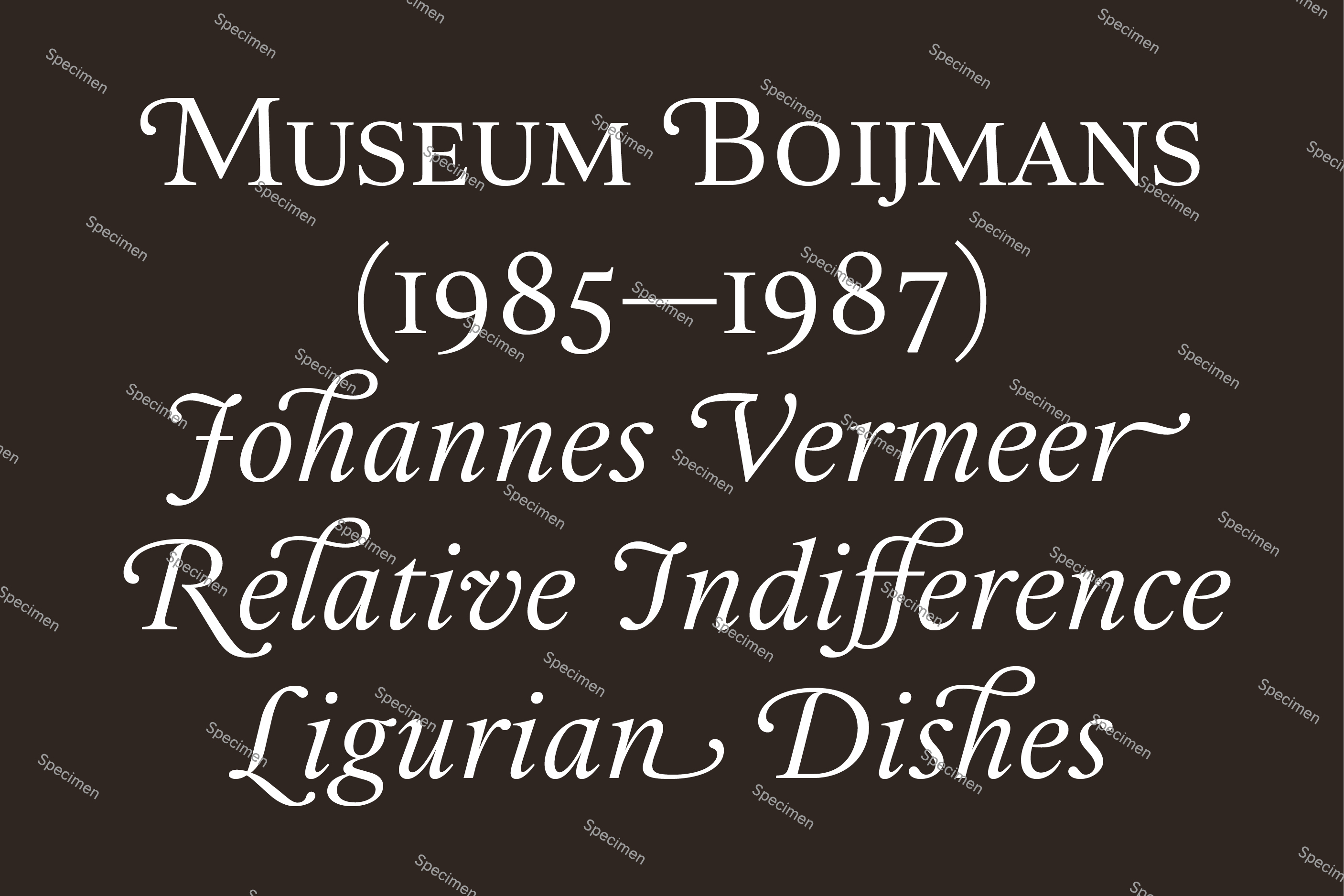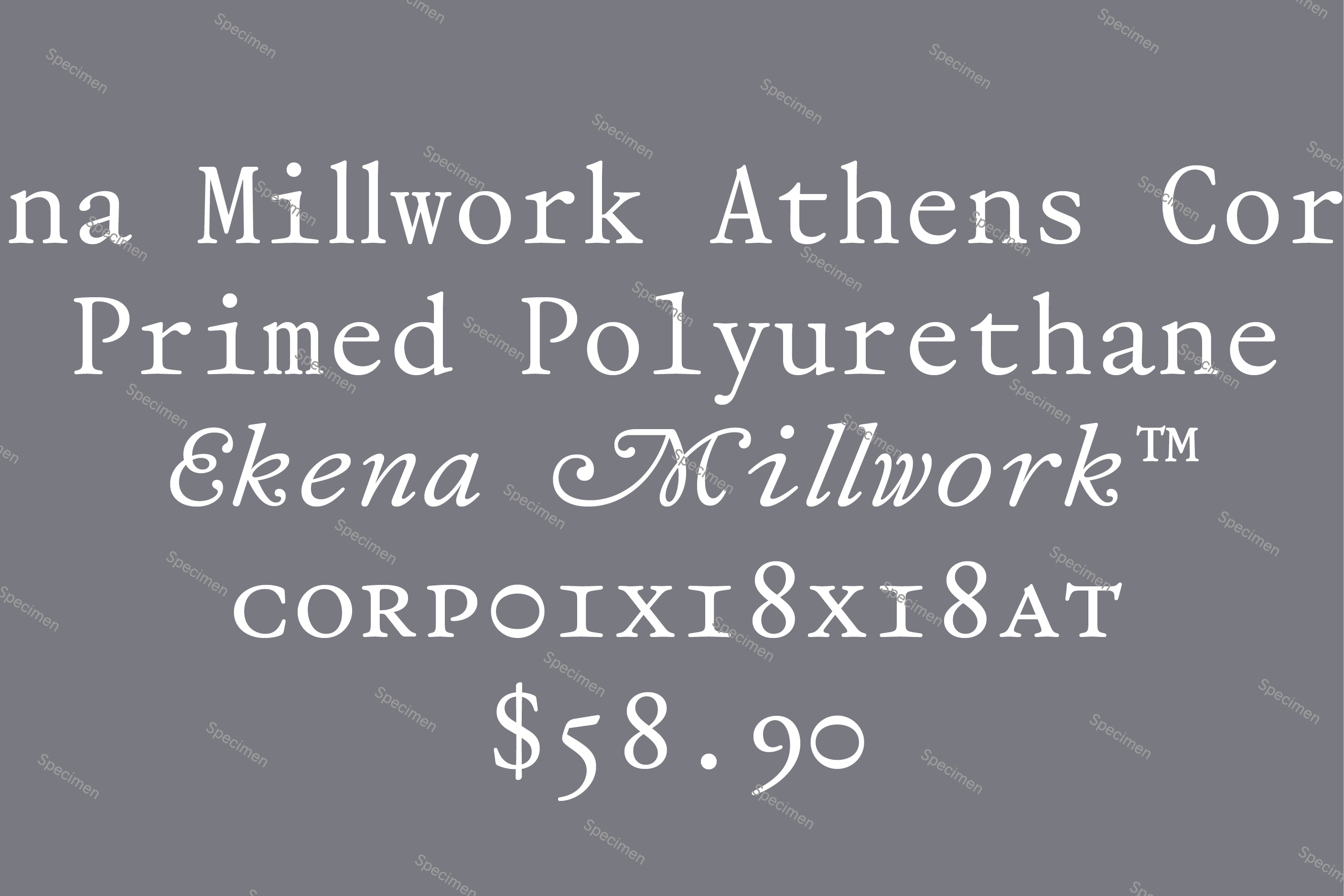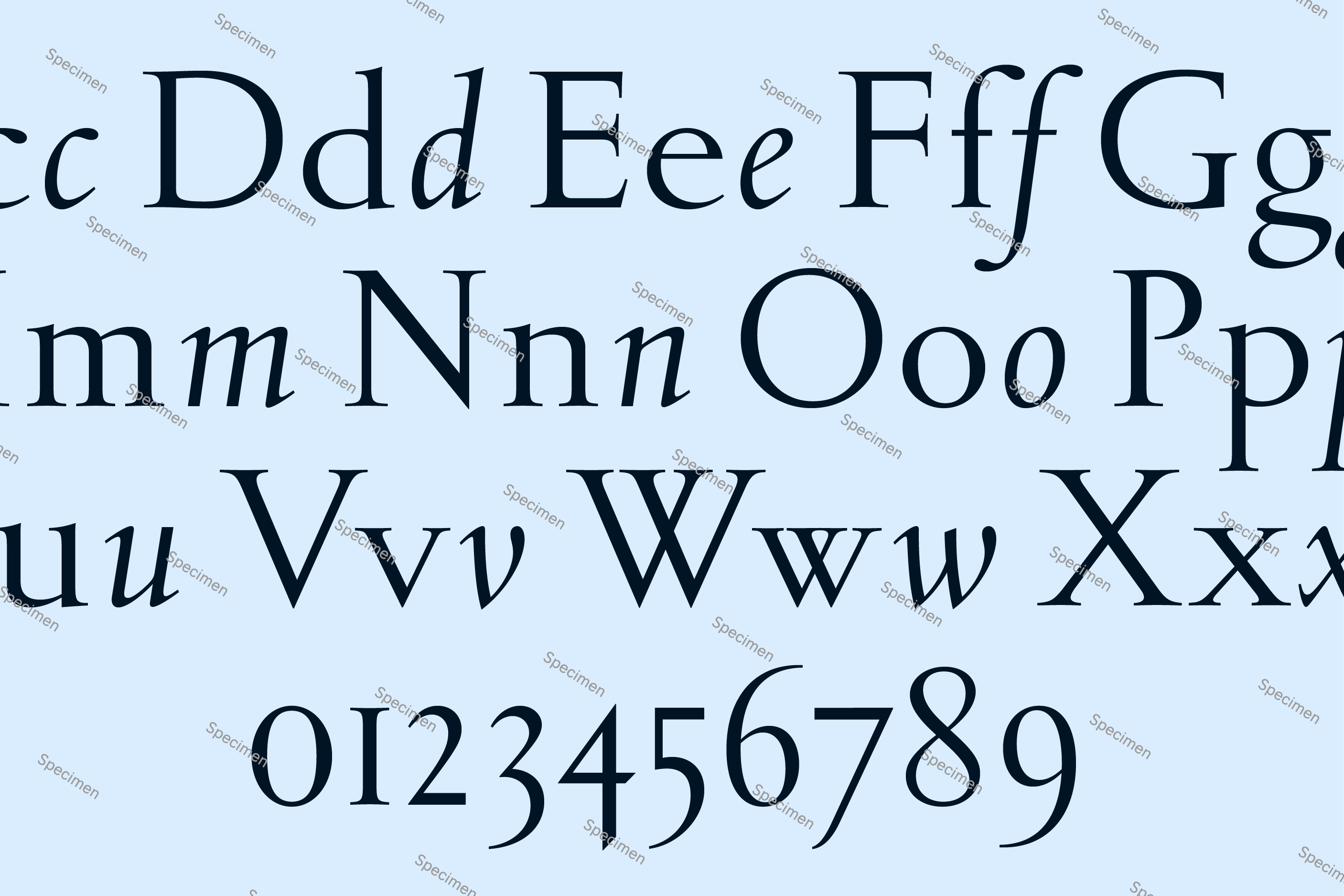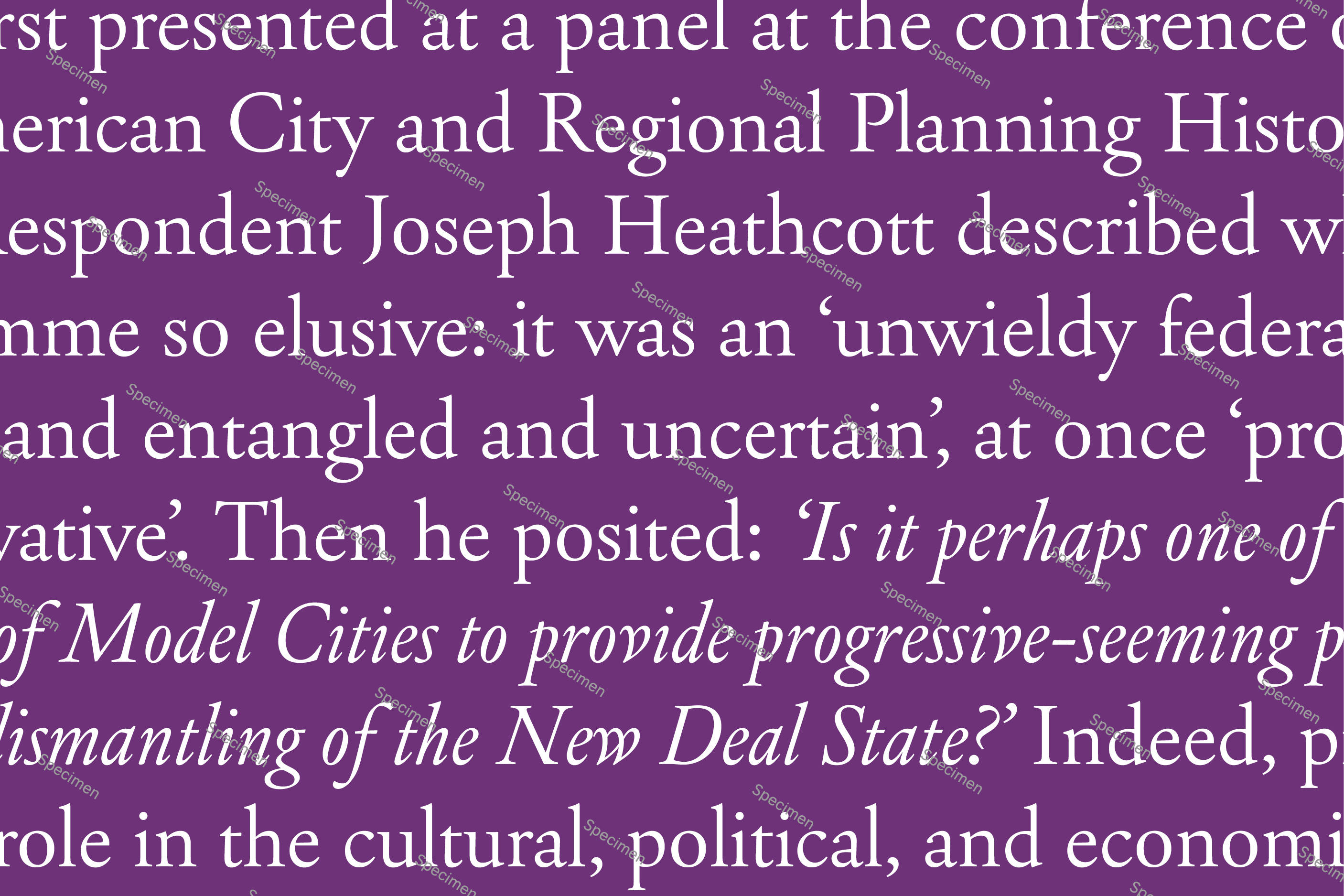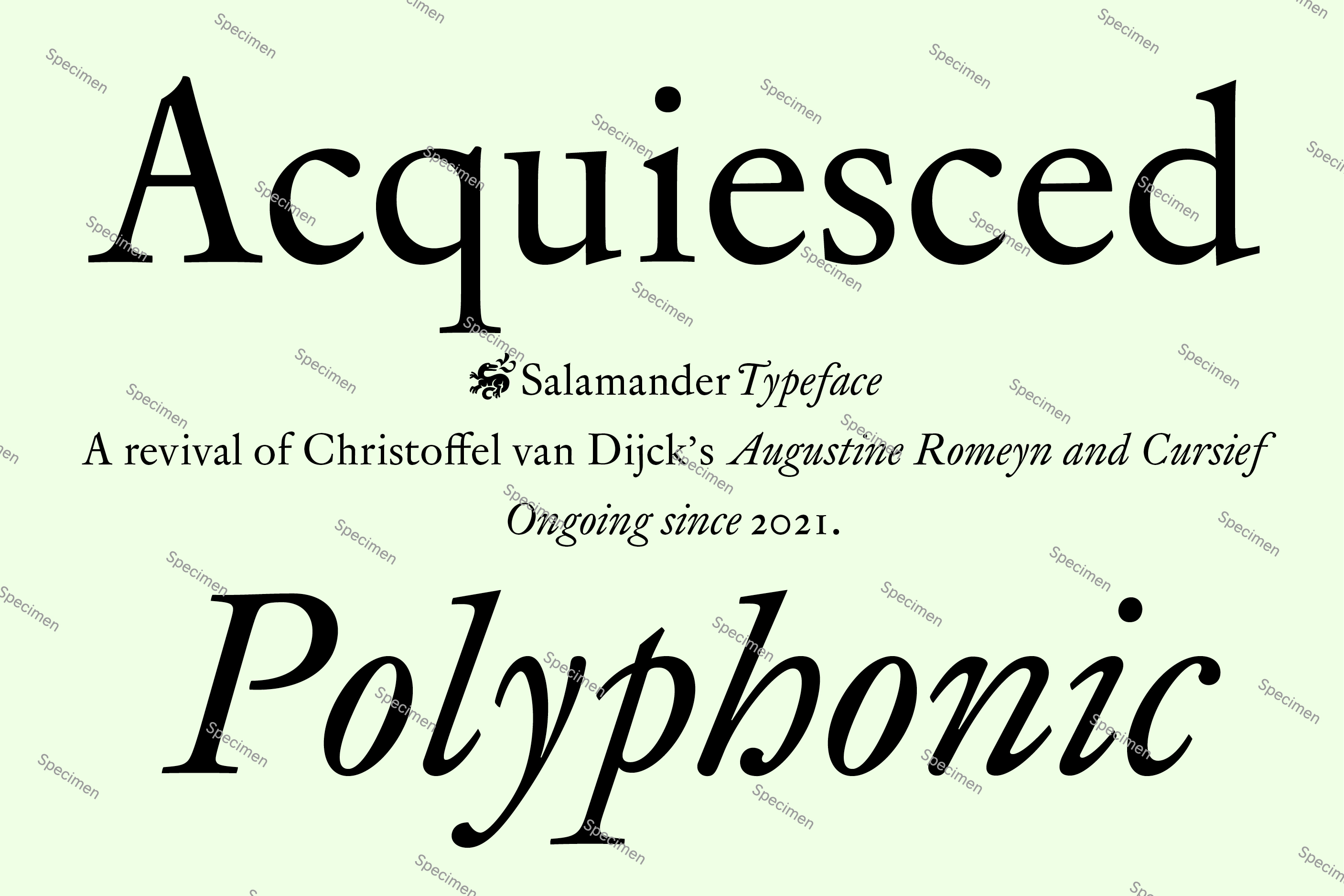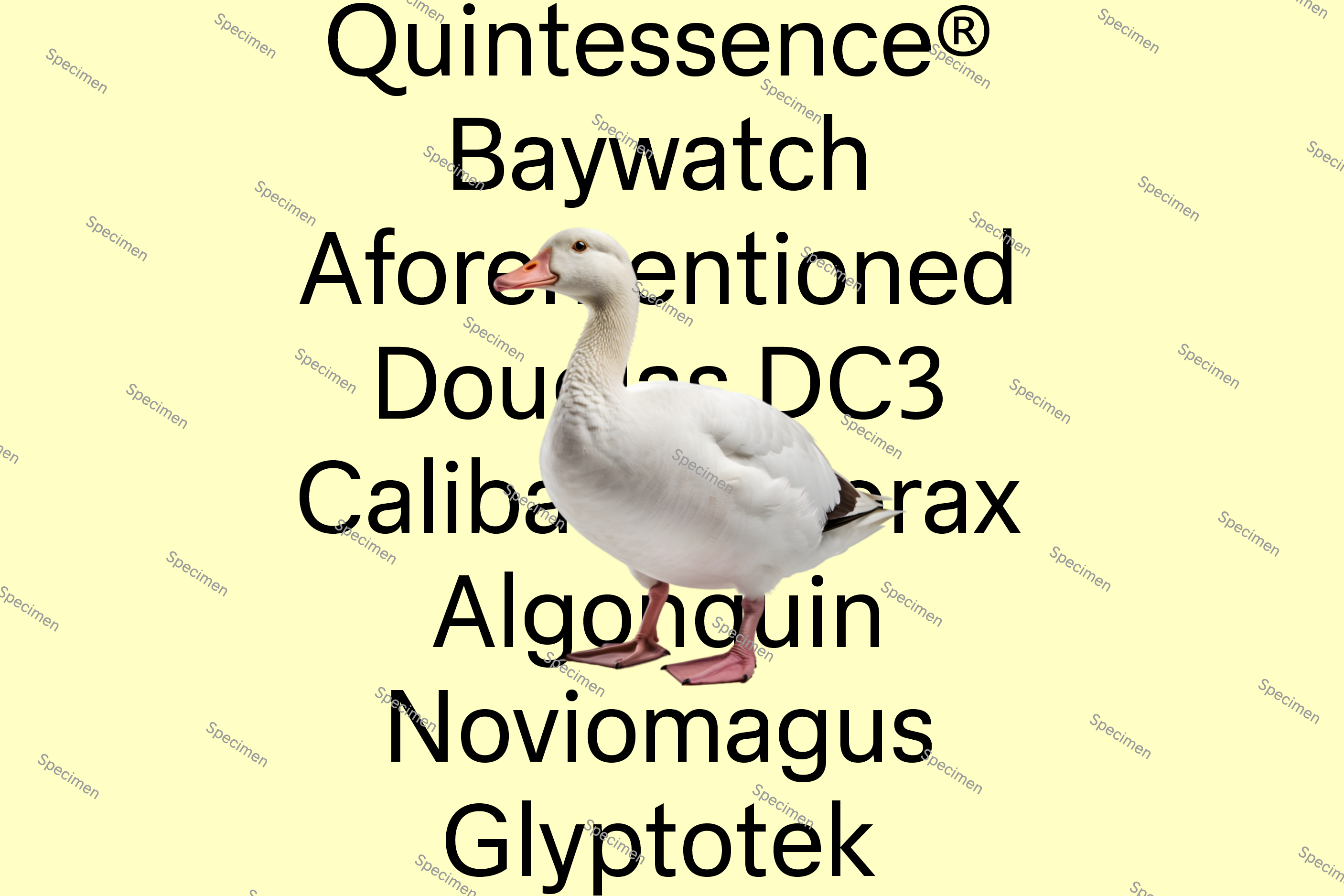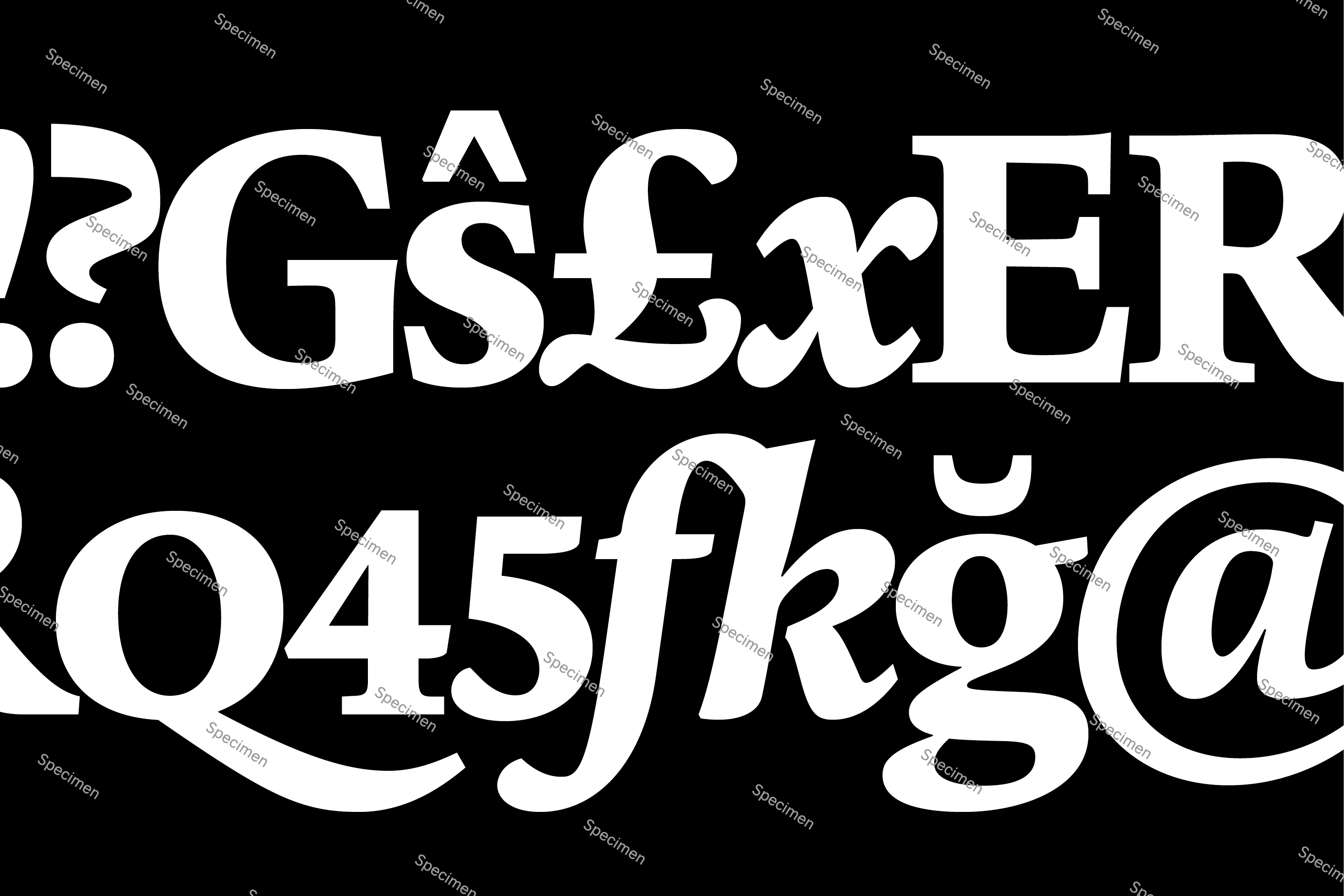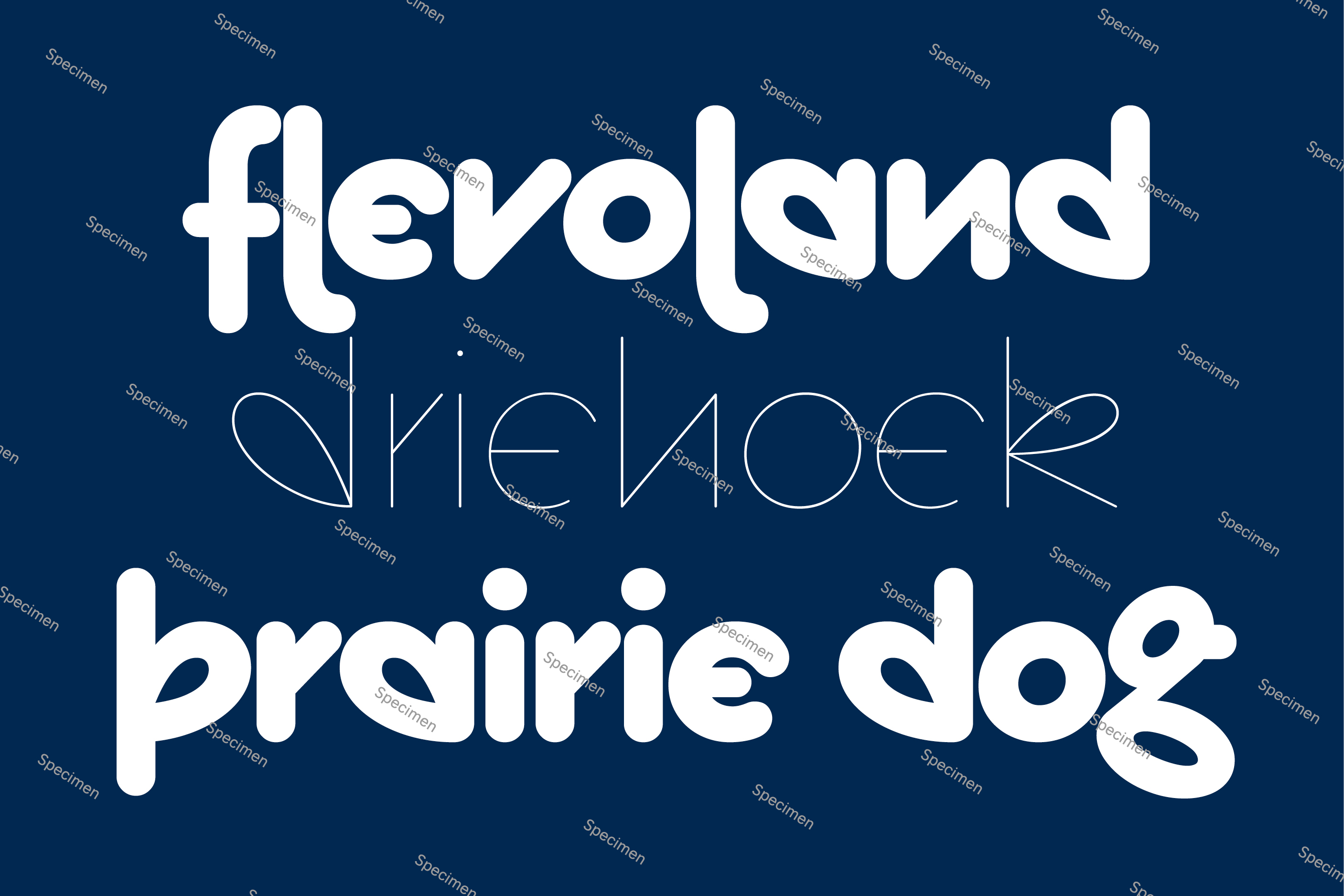
Gablet
A classical serif family, designed during the Type & Media masters
8 styles, Regular to Black + Italics
Ongoing since 2022
J. Wise
Standaard
A revival and expansion of the NEN3225 Serif
4 styles, Display & Text + Italics
Ongoing since 2023
J. Wise, A. Madić
Salamander
A revival of Christoffel van Dijck’s Augustine types, c. 1640s
2 styles, Roman + Italics
Ongoing since 2021
J. Wise
Penelope
A weird and playful unicase font
Multiple weights, 1 Variable
Ongoing since 2023
J. Wise
Holger
An interpretation of François Guyot’s Double Pica Roman and Ascendonica Cursive, c. 1560s
2 styles, Regular + Italic
Ongoing since 2021
O. Verhoeve
Spiral
An adaptation of Mecanorma’s 1972 Spiral typeface
Multiple styles, 1 Variable
Ongoing since 2023
J. Wise
Goose
A bog-standard sans serif with a few cute details
1 Style currently, with more planned
Ongoing since 2022
J. Wise
Kormelink (Update)
A fully redrawn and expanded update of Kormelink
2 Styles, Regular + Italic
Ongoing since 2023
J. Wise, P. Pavlov